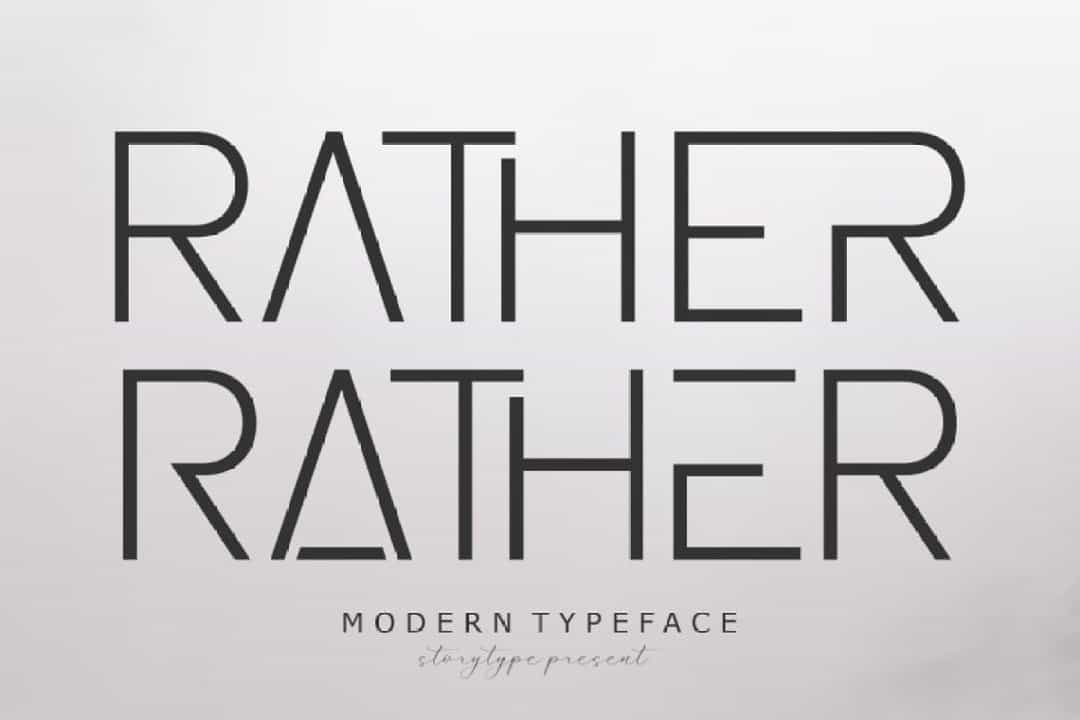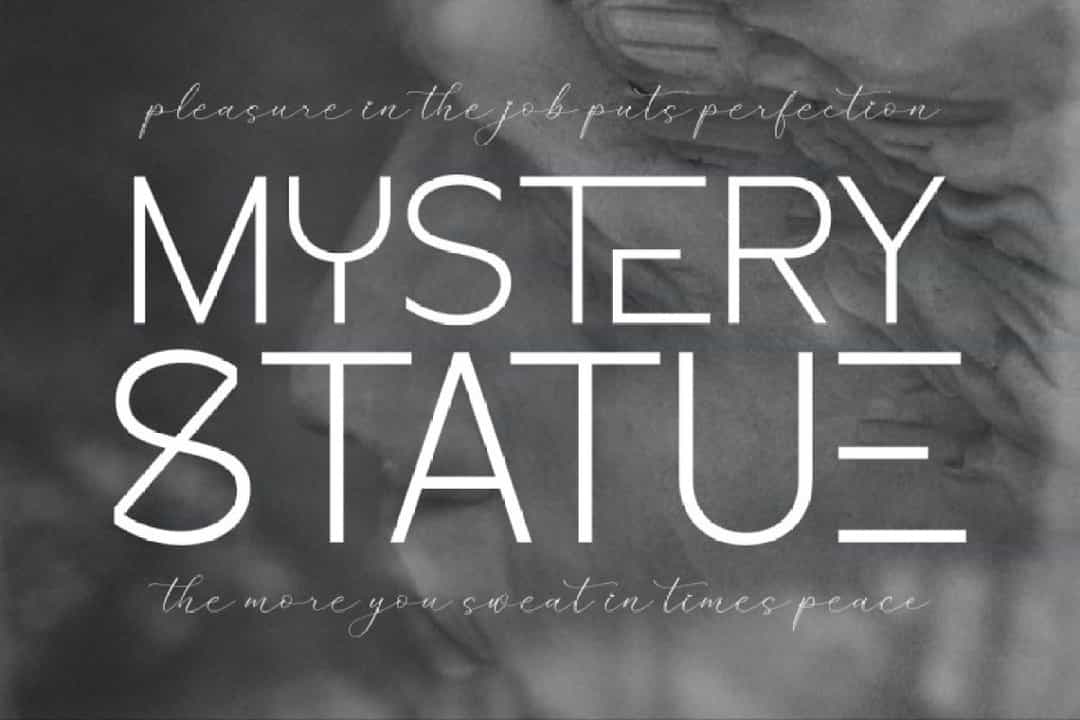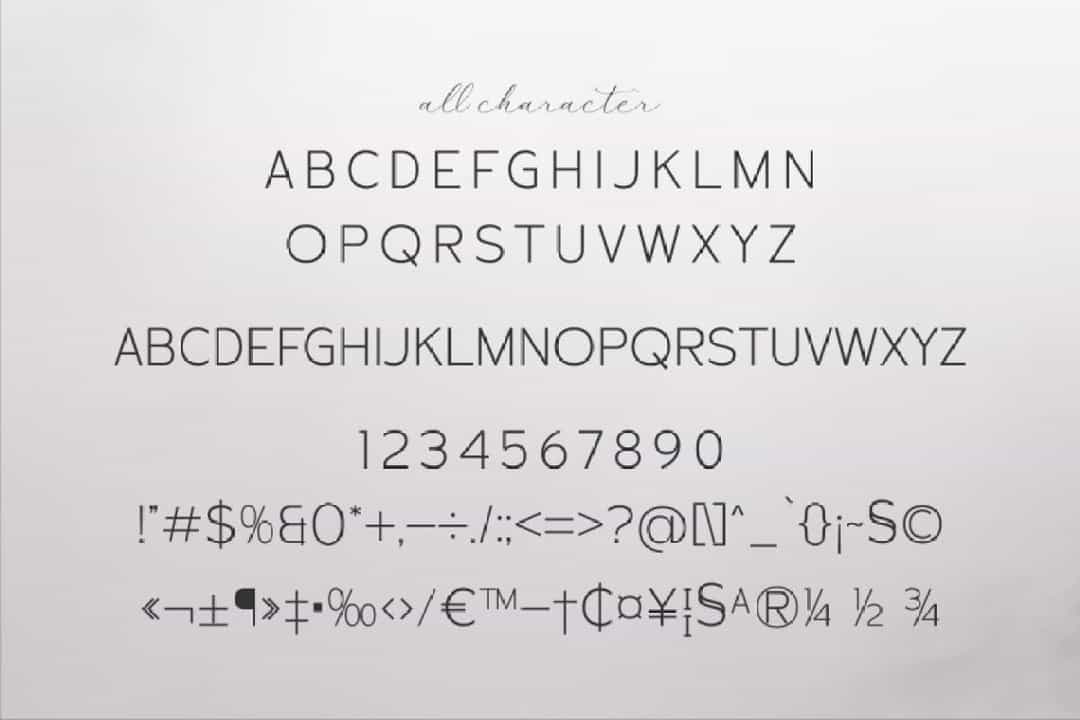
Rather is an elegant sans-serif font with its own distinct style and contemporary appearance, ideal for creating classy logos, movie or book name designs, fashion brand clothing designs, magazine articles and lettering projects as well as quotes. This typeface provides the ideal solution for modern logo design projects as well as creating elegant movie posters.